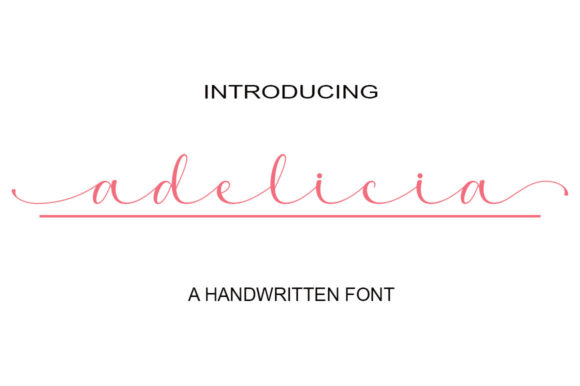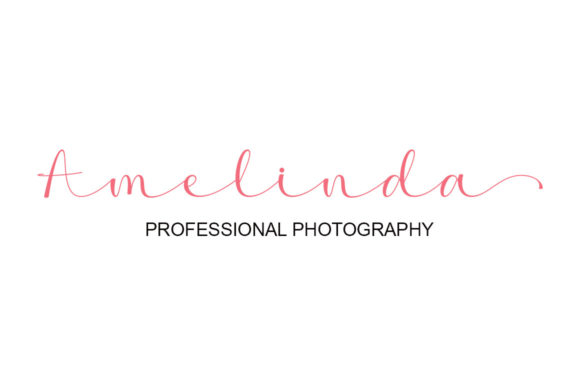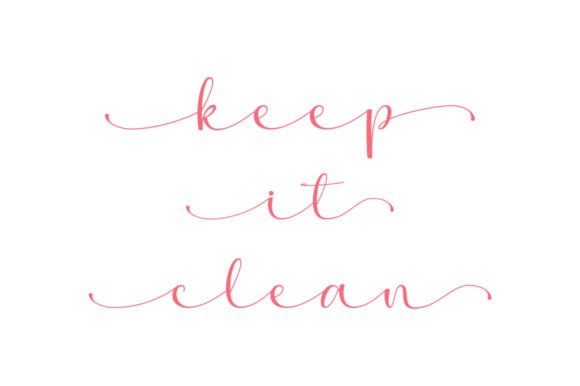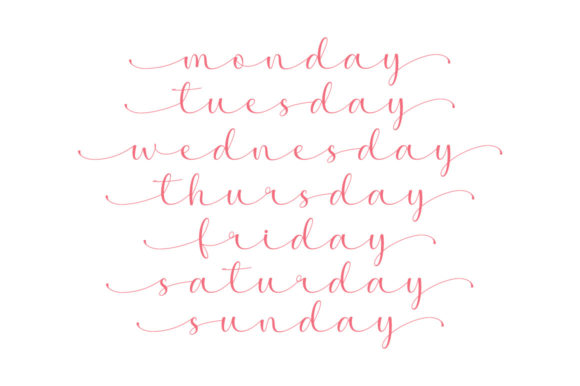
Adelicia Font
About the Adelicia Font
The Adelicia Font is here to transform your projects with its distinctive character and style. Adelicia is a romantic and sweet handwritten font, featuring characters that dance along the baseline. It will add a luxurious spark to any project you wish to create! This font is PUA encoded which means you can access all of the amazing glyphs and ligatures with ease!
Adelicia’s elegant, flowing forms make it ideal for projects requiring a touch of luxury and romance, such as wedding invitations, branding for beauty products, or short-form editorial design. It excels in headlines, short quotes, and logos, where its graceful character shines. However, its delicate nature makes it unsuitable for large blocks of text or UI elements; legibility suffers in smaller sizes or extended use.
Consider pairing Adelicia with a clean sans-serif like Montserrat for a modern contrast, or a classic serif like Garamond for a more timeless feel. For a playful touch, a slightly quirky geometric sans-serif could also work well. Avoid pairing it with other script fonts, as this can create visual clutter.
Adelicia’s overall personality is best described as romantic and sophisticated, conveying a sense of gentle luxury and timeless appeal. Its delicate strokes and graceful curves evoke a feeling of refined elegance.
Adelicia Font Usage Examples
Adelicia Font Example